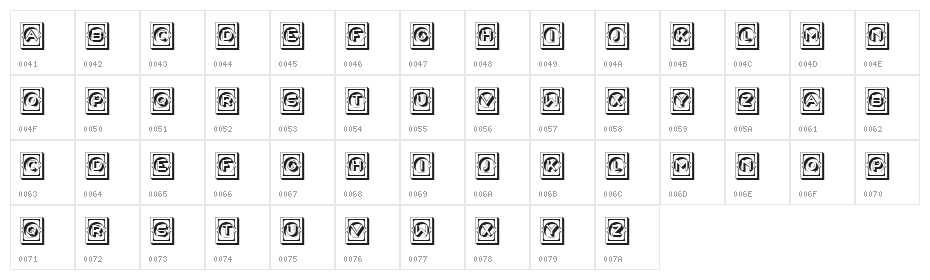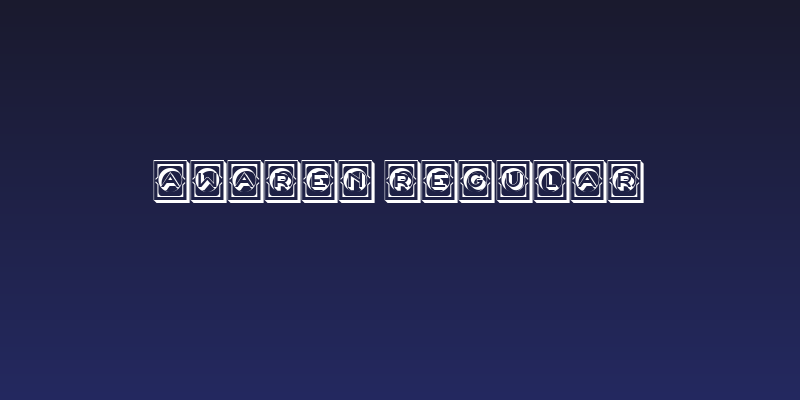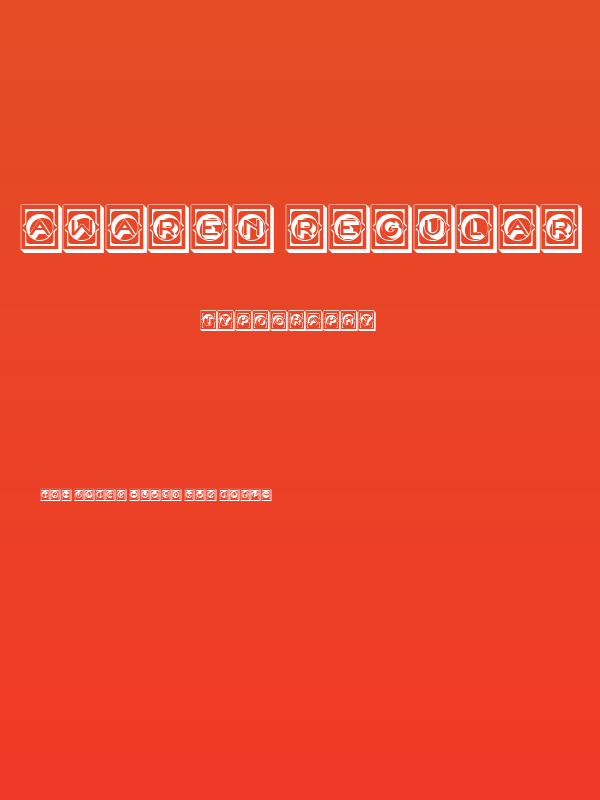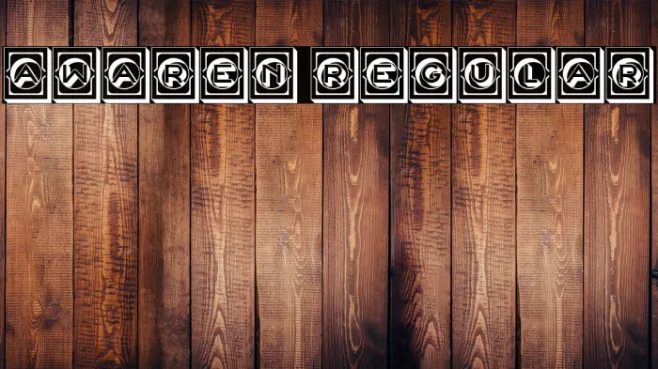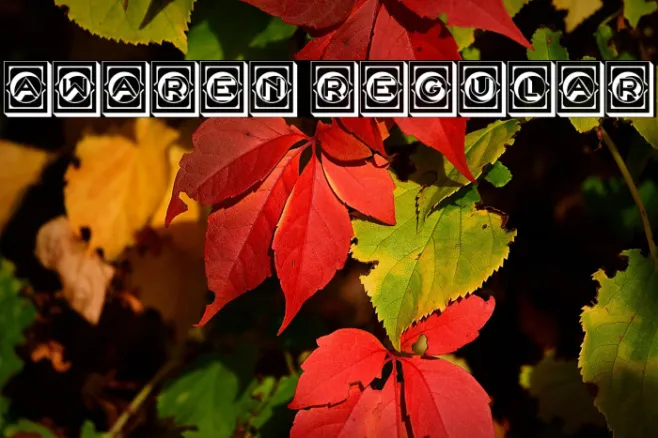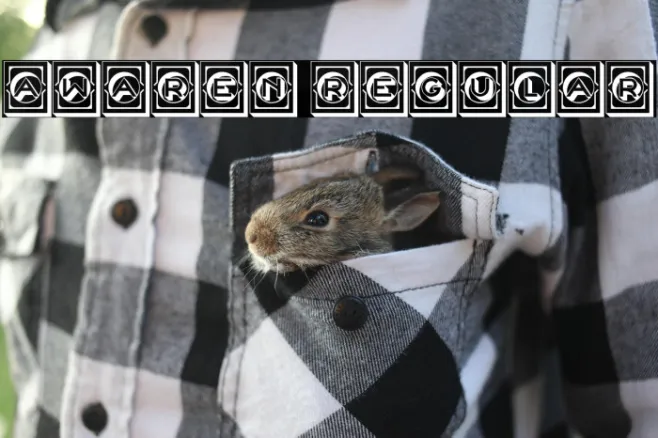
Awaren Regular Font
Awaren Regular Description
This font features a bold, geometric style with each character enclosed in a square frame, creating a three-dimensional effect. The letters are uppercase and have a consistent thickness, contributing to a uniform appearance. The design is reminiscent of block lettering, with a modern twist due to the shadowing effect that gives depth. The characters are well-defined and easily readable, making them suitable for attention-grabbing designs. The overall look is both playful and structured, ideal for creative projects that require a standout typeface.
| Proposed Projects | Ideal for posters, logos, and headlines where a bold, eye-catching font is needed. |